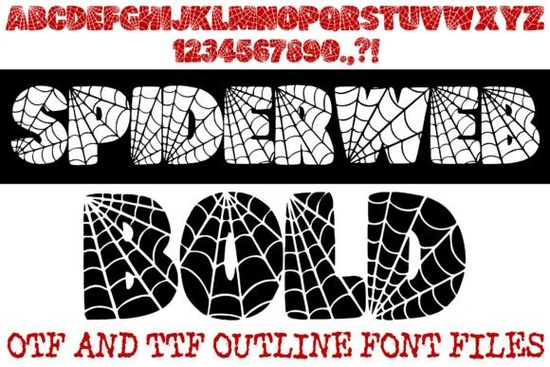
When you need to add instant spooky charm to a Halloween project, the Spiderweb Bold Font delivers intricate web-filled letters that grab attention. Designed as a high-impact display typeface, every character is packed with a hand-drawn spiderweb pattern inside thick, rounded bubble shapes. This bold lettering choice instantly gives party invitations, horror-themed merch, and seasonal decor a creepy yet playful look without needing extra graphics.
What makes the letter shapes so spooky and unique?
The biggest draw is the internal detailing. Unlike standard outline fonts that simply trace a letter’s edge, this typeface fills each uppercase character with an uneven, natural-looking spiderweb. The thick bubble silhouette keeps words legible even at larger sizes, while the inner webbing adds texture that works wonderfully on dark backgrounds. You get the whole A–Z set, plus numbers 0–9 and basic punctuation like period, comma, question mark, and exclamation point all in a consistent outline style that looks cohesive across every glyph.
Because the forms are so bold, you can drop them onto busy party flyers, dark event posters, or bright orange Halloween banners and the text won’t disappear. The high contrast between the chunky letter edges and the see-through web sections helps maintain readability even when things get visually chaotic.
Which projects really benefit from this font?
Designers creating Halloween party invitations get an instant win: type the event name in all caps, and the web-filled letters do the heavy lifting. Print-on-demand sellers can use it for “trick or treat” tote bags, horror-themed t‑shirts, or spooky mugs where a single striking word makes the product stand out. Small businesses running seasonal promotions also find it handy for social media graphics, window signage, and flyers that need that haunted-house vibe without feeling childish.
Crafters making physical items like wood signs, iron‑on decals, or scrapbook titles appreciate the clean outline nature cutting machines trace the outer edges beautifully, and the internal web becomes an open space that reveals the material underneath. If you work with dark cardstock or black vinyl, the cut‑out look is especially dramatic.
What should you keep in mind before using it?
Important: the Spiderweb Bold Font includes capital letters only, plus numbers and a limited set of punctuation (. , ? !). There are no lowercase characters. If your phrase relies on a mix of upper‑ and lowercase letters, you’ll need to adjust your design to work in all caps or use a complementary sans‑serif for secondary text like dates and details. This is completely normal for display fonts, but planning your copy around the uppercase restriction early prevents last‑minute surprises.
The intricate web interior also means the font works best at larger sizes. For tiny fine print (like small ingredient lists on a party label), the webbing can become too dense and reduce clarity. A good rule: use this font for headlines, titles, and key phrases, then pair it with a clean, simple font for body text.
How does it stack up against other decorative fonts?
In the realm of Halloween display type, you’ll find plenty of drippy, jagged, or grunge options. The Spiderweb Bold Font stands apart because of its unusual combination of soft bubble shapes and detailed internal pattern. It feels eerie but not aggressive, making it suitable even for kid‑friendly spooky themes. If you’re after a less creepy, more whimsical feel maybe for a children’s classroom party or a cute pet costume event a font like the Love Cat typeface leans toward sweet rather than scary, with charming cat‑inspired letterforms that still keep things decorative.
For print‑on‑demand sellers who switch between seasons, having both a terrifying Halloween font and a softer playful font in your toolkit helps you cover a wider range of customer tastes. The Spiderweb Bold Font fills the niche of high‑contrast, immediate Halloween recognition that sells well on apparel and stickers from September through October.
Practical quick-start checklist
- Plan for all caps: Draft your headline text in capital letters only before you start laying out the design.
- Scale it up: Aim for at least 36pt in printed projects so the web details stay crisp, or even bigger for apparel.